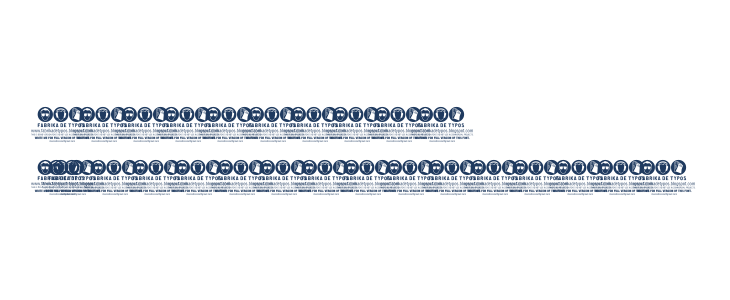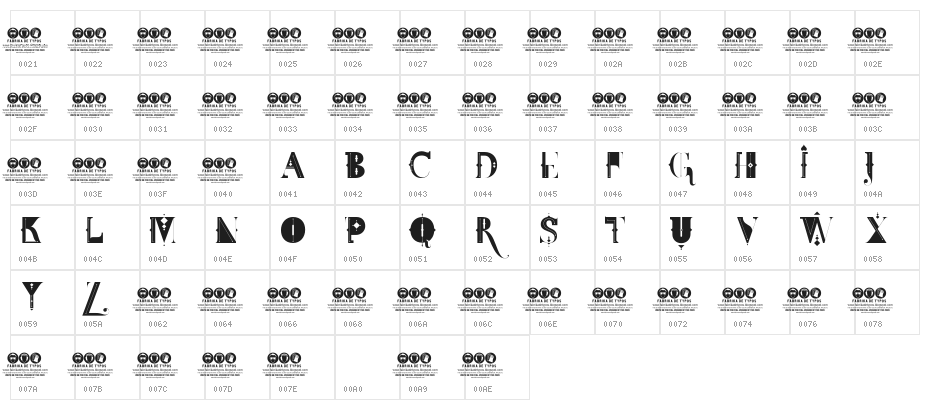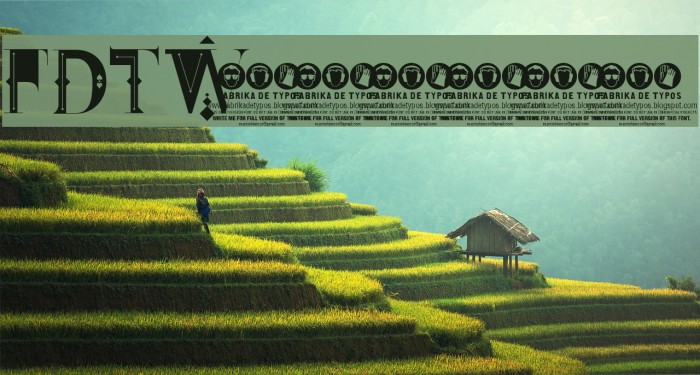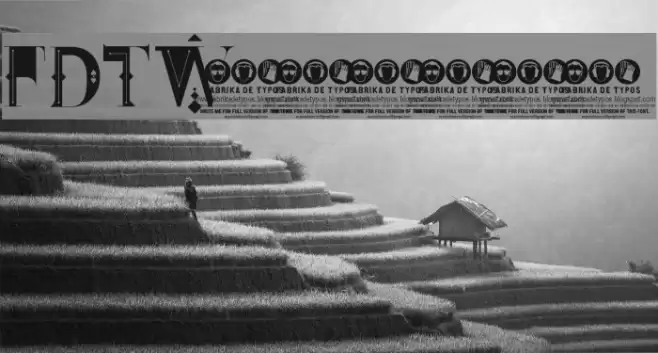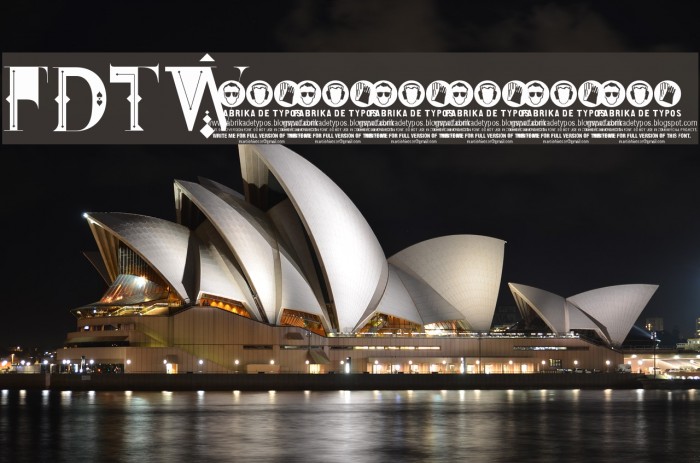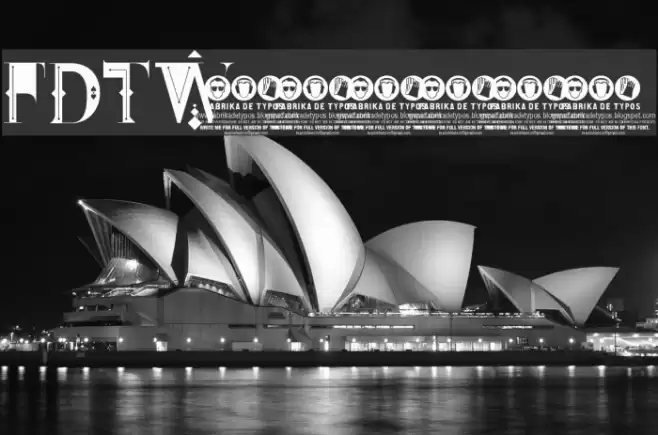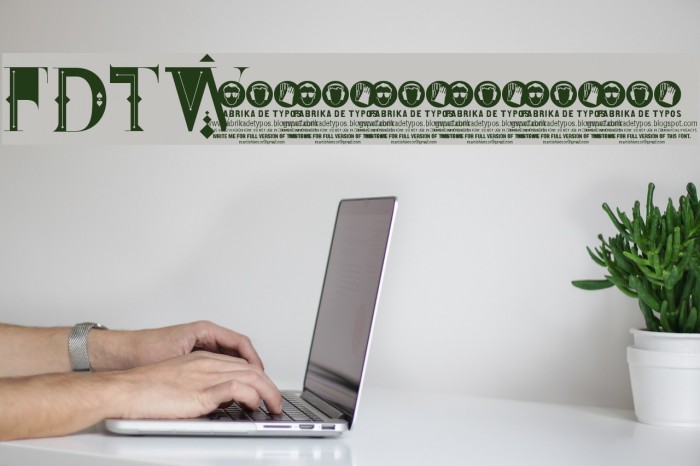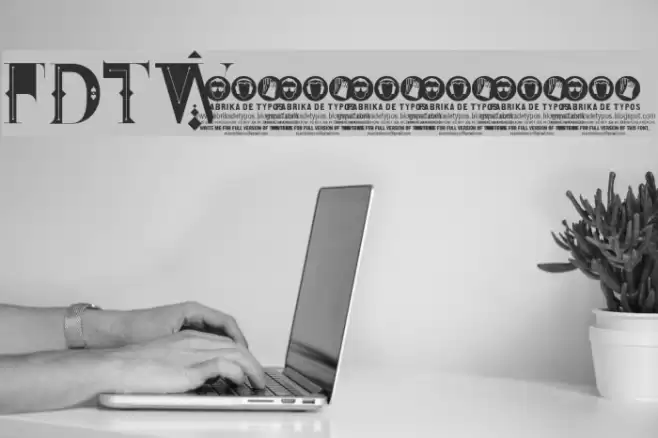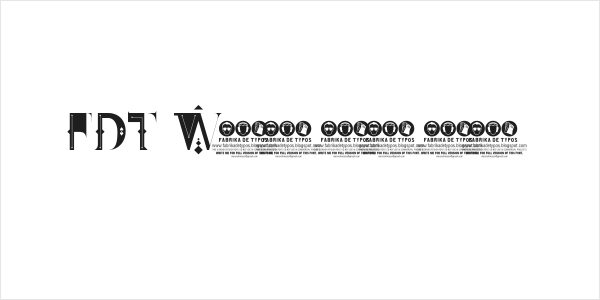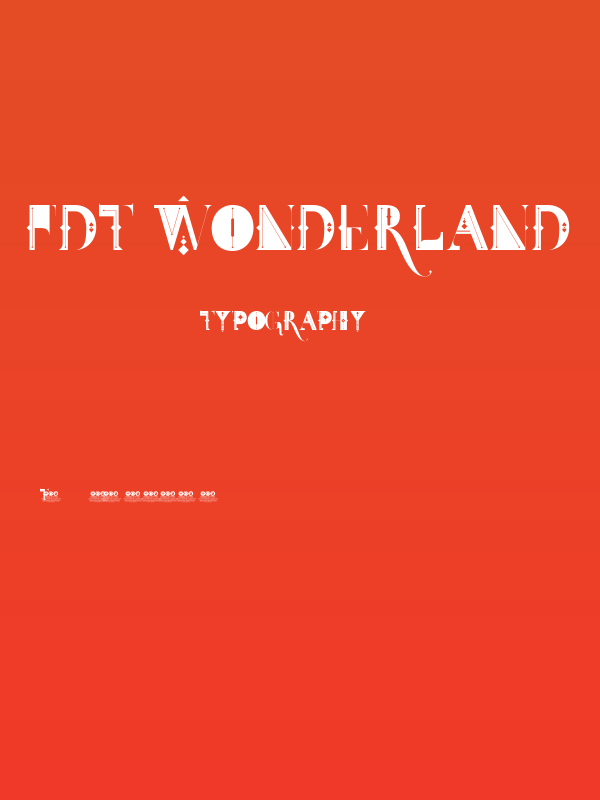
FDT_Wonderland Font
This font features a highly decorative and artistic style, characterized by intricate details and unique embellishments on each letter. The uppercase letters are particularly striking, with elements such as dots, lines, and geometric shapes integrated into their design, giving them a whimsical and fantastical appearance. The font's overall aesthetic is reminiscent of vintage circus or carnival posters, with a playful yet sophisticated flair. The characters are bold and have a strong presence, making them ideal for eye-catching displays. The font's distinctive style makes it suitable for creative projects that require a touch of elegance and fantasy.
Overall StyleVintage, Decorative
Proposed ProjectsIdeal for use in posters, book covers, event invitations, and branding projects that require a unique and artistic touch.